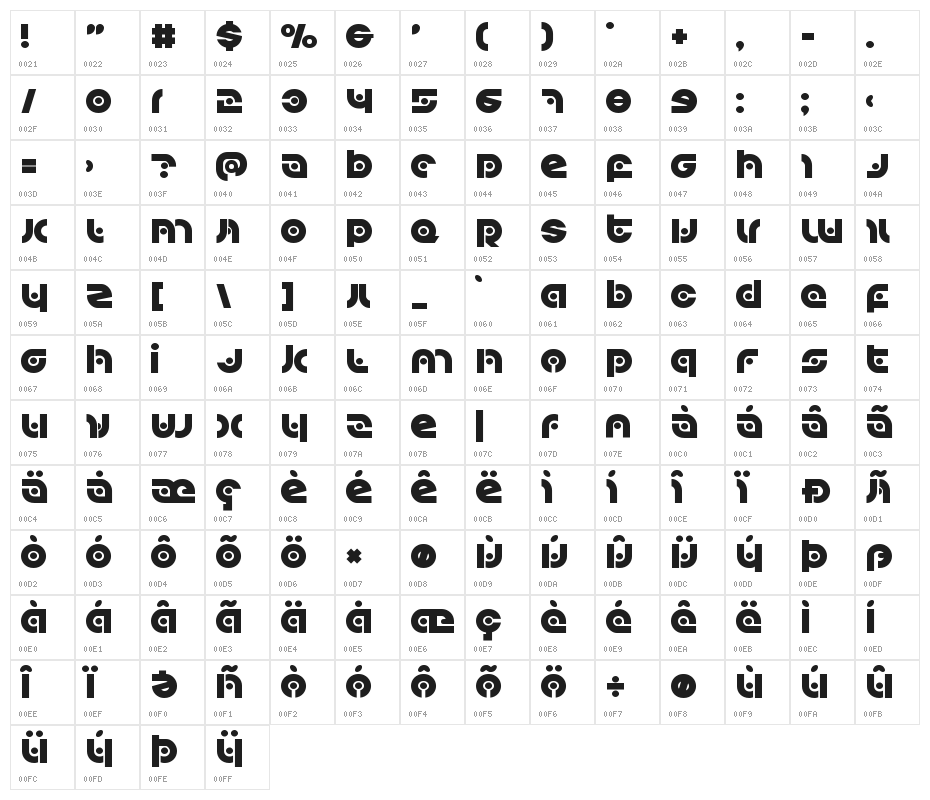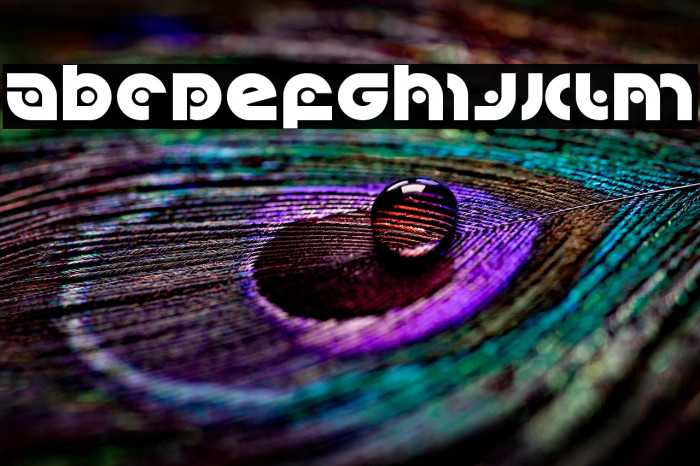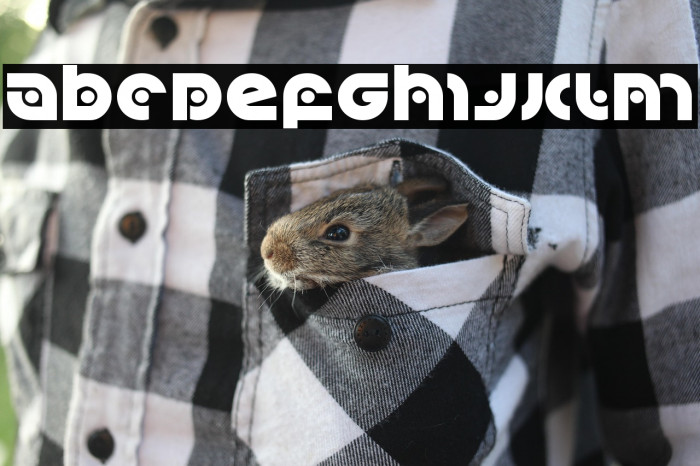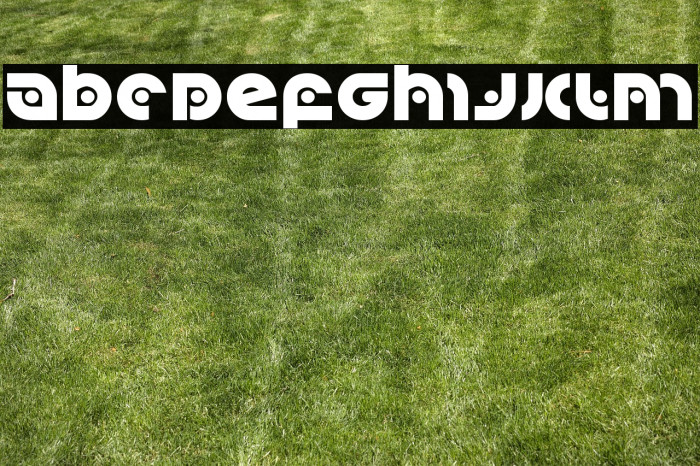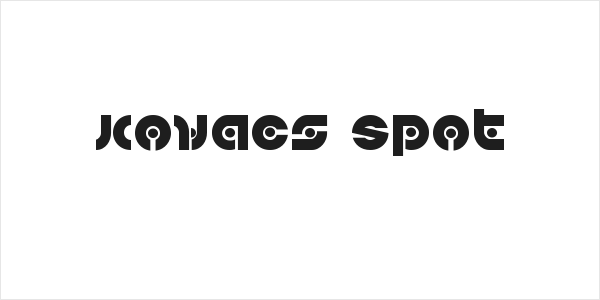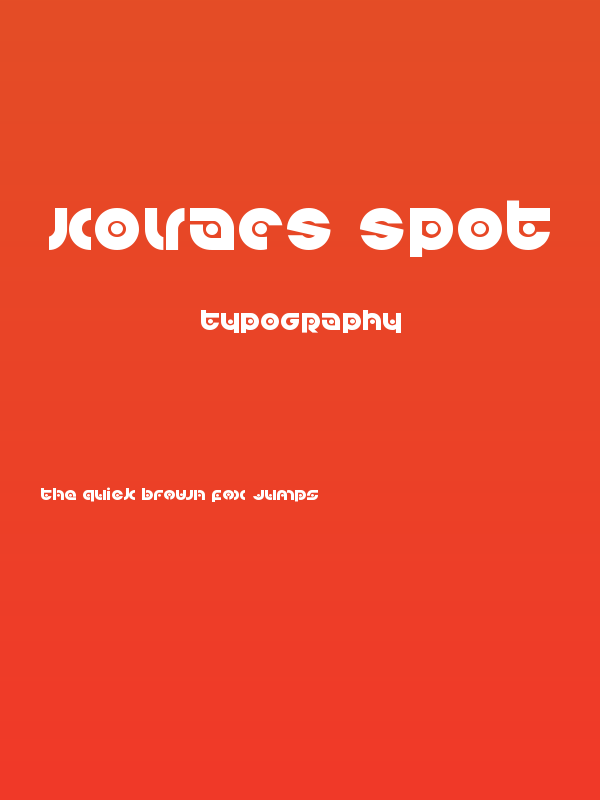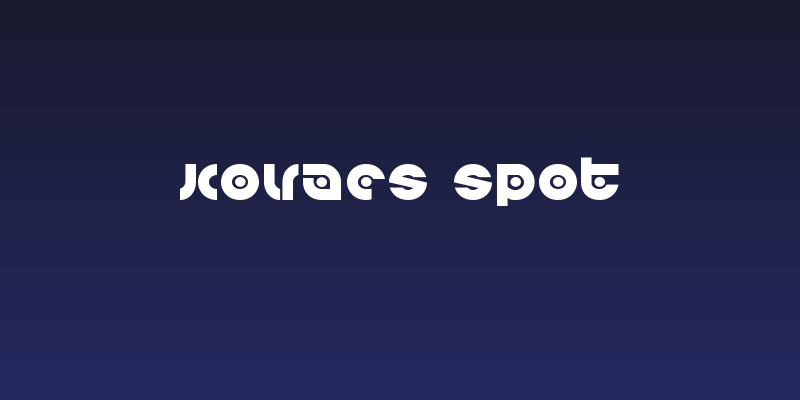
Kovacs Spot Font
Kovacs Spot Description
This font features a bold and geometric design with a futuristic flair. Each character is crafted with thick, uniform strokes, creating a strong visual impact. The letters are constructed with a combination of straight lines and curves, giving them a unique, almost mechanical appearance. The rounded edges and symmetrical shapes contribute to a modern and sleek aesthetic. The font maintains a consistent weight throughout, ensuring readability while still making a statement. Its distinct style is both eye-catching and versatile, suitable for a variety of creative applications.
| Proposed Projects | Ideal for branding, posters, digital artwork, and any project requiring a modern, bold statement. |